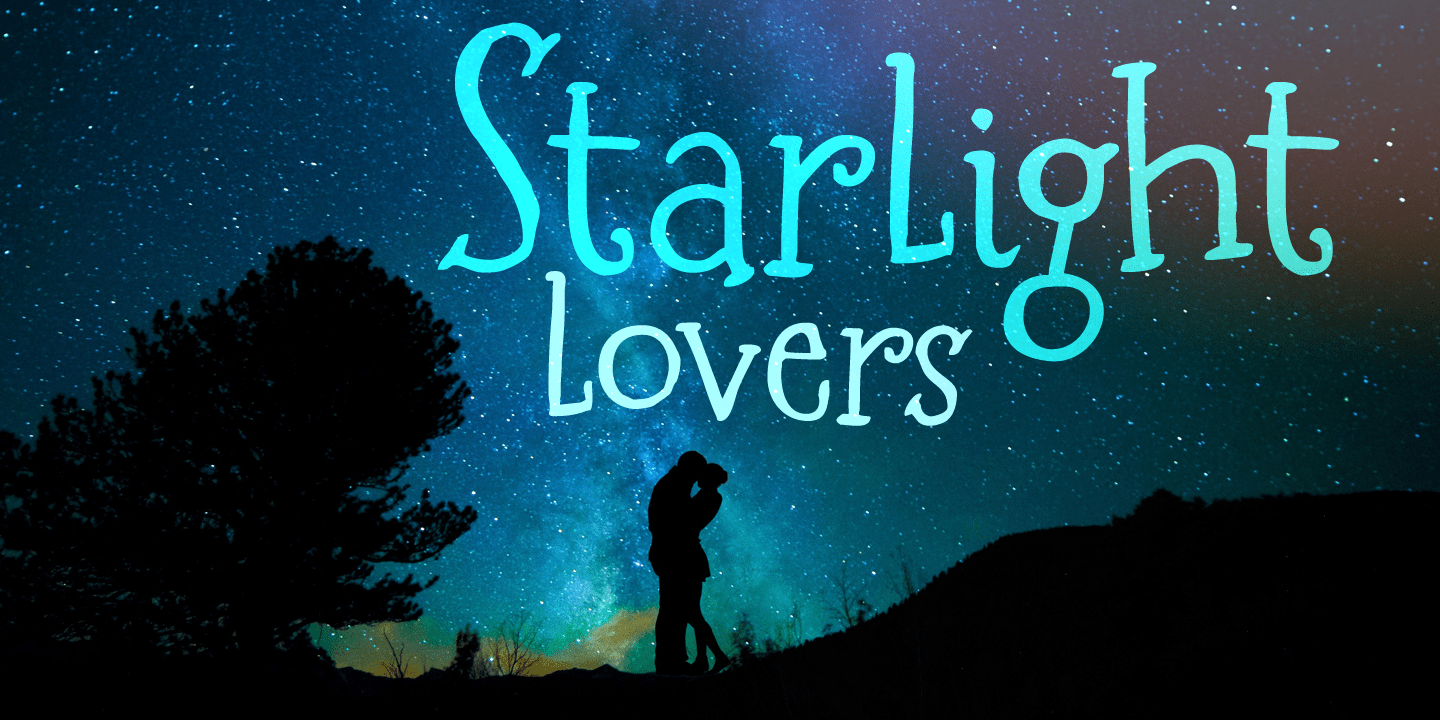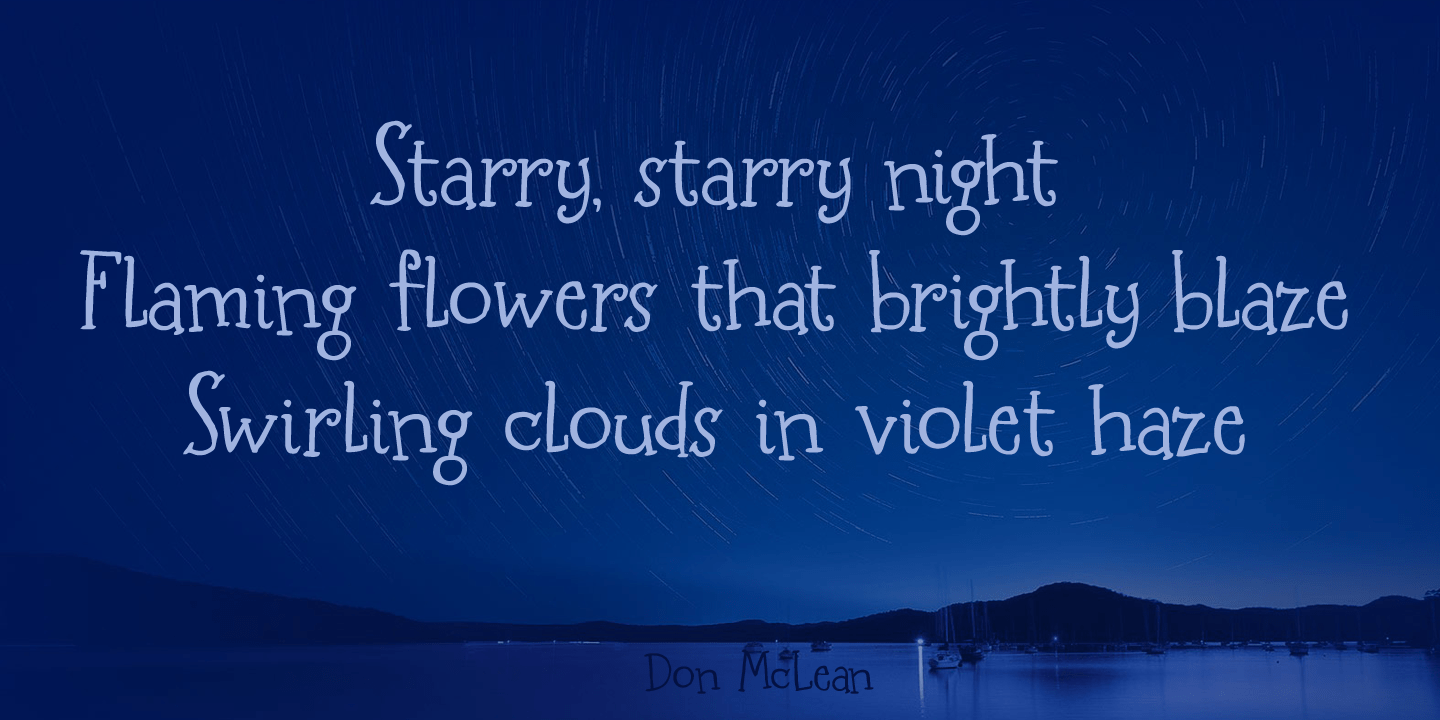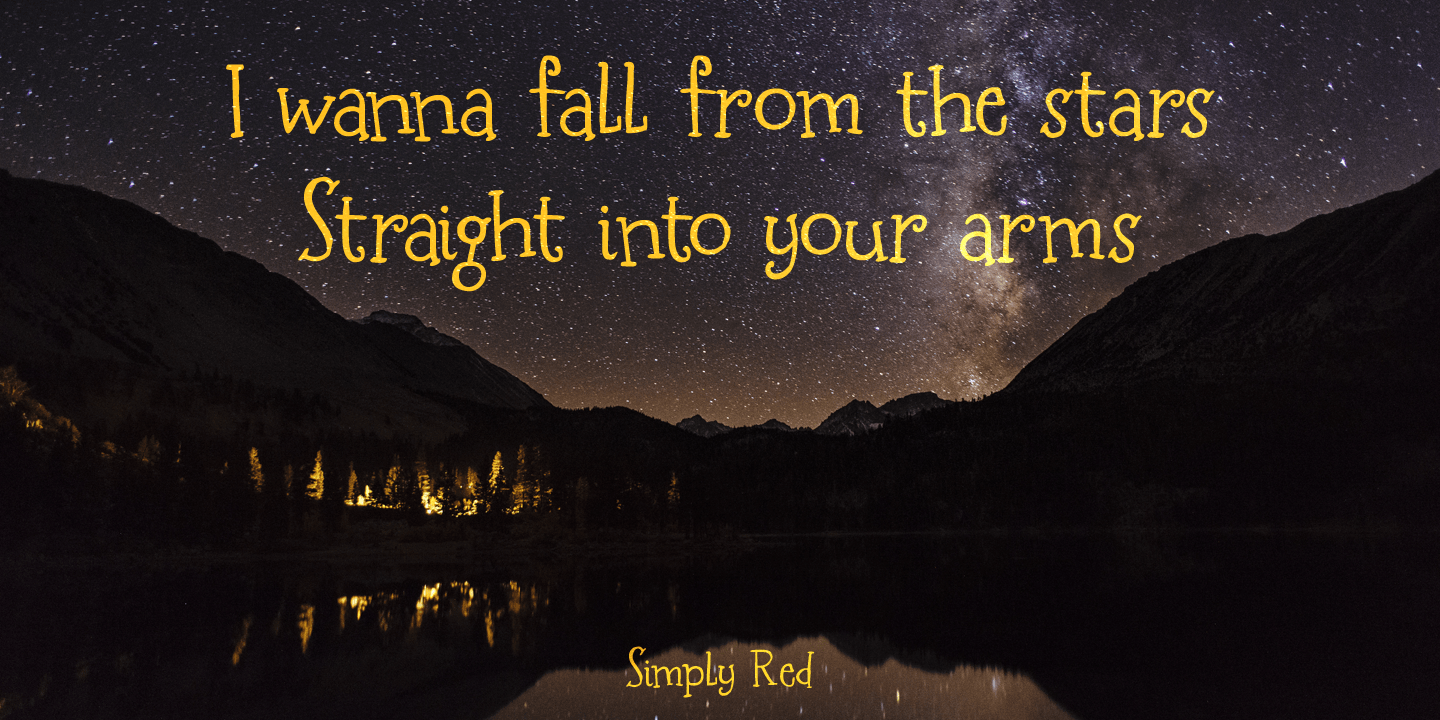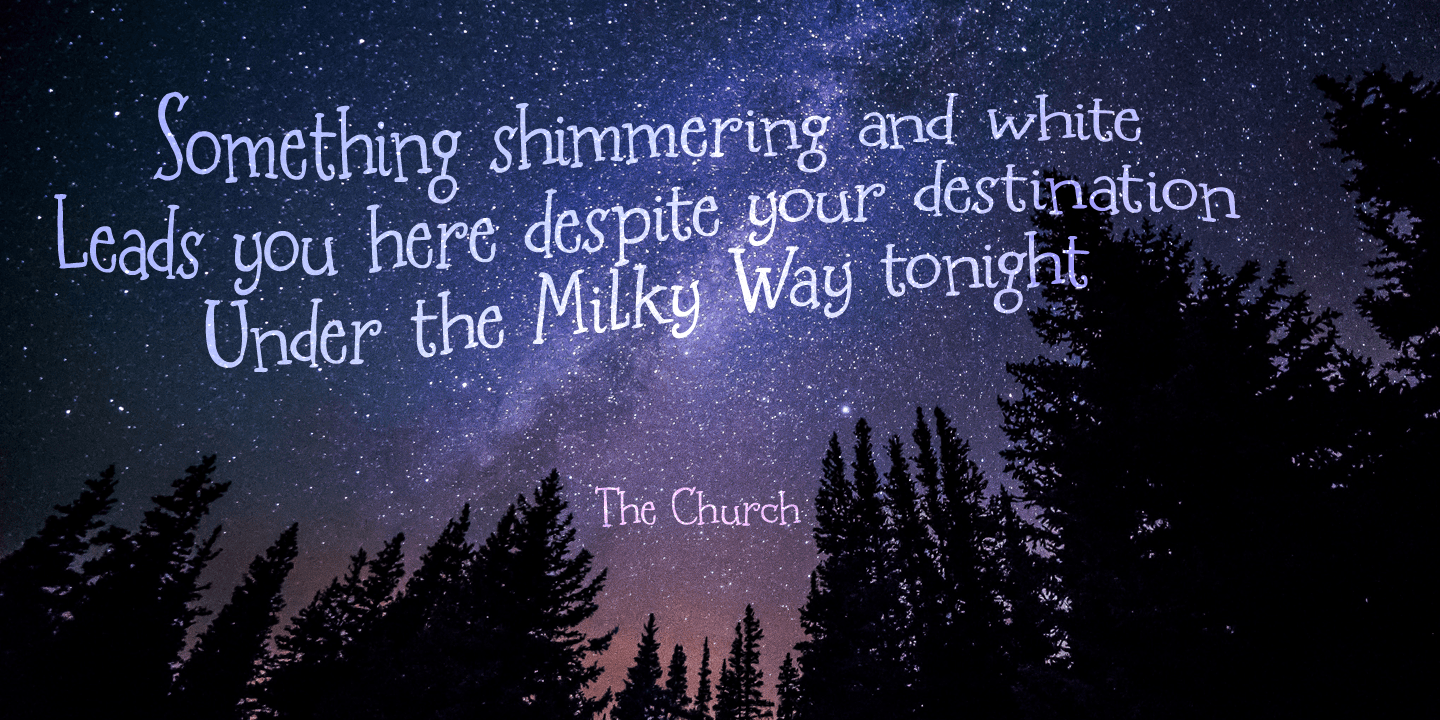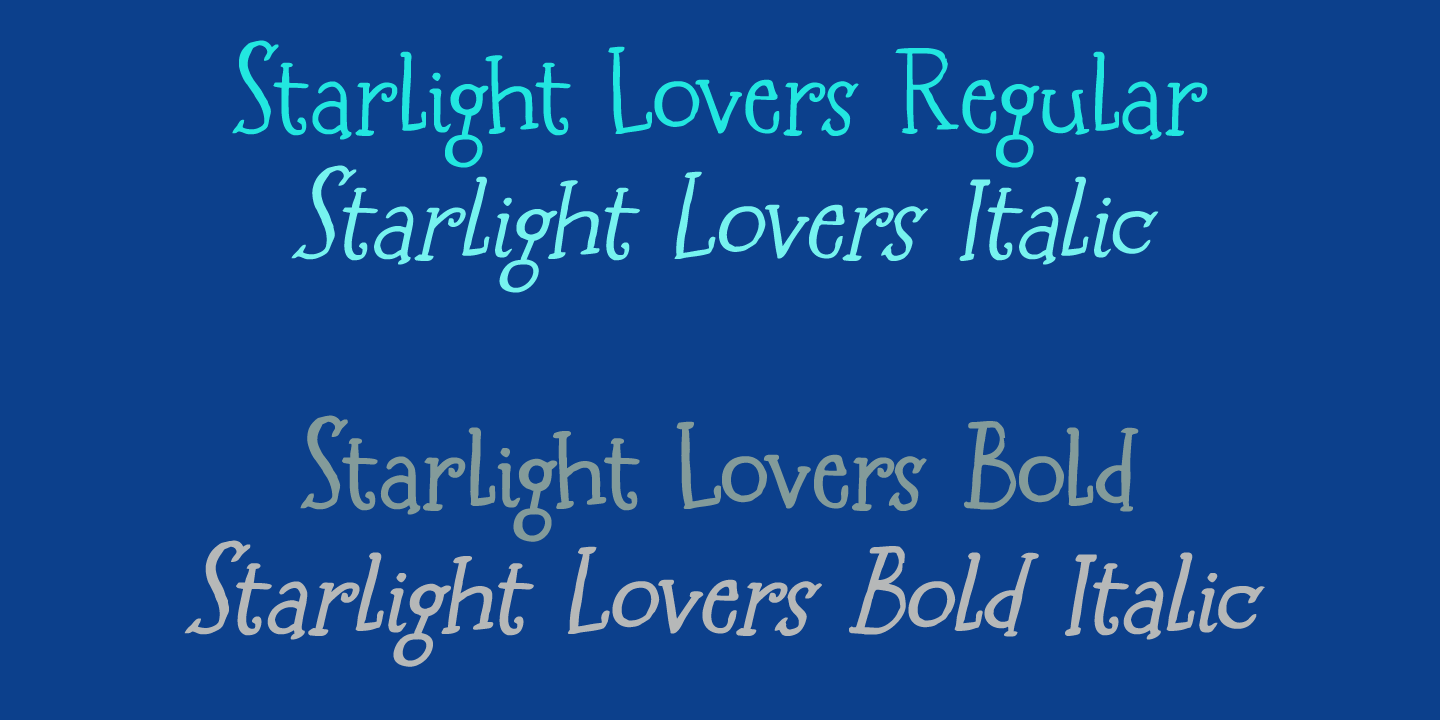
Starlight Lovers
I have always loved gazing at the stars. Too bad that you don't get to see a true starry night these days - mostly because of light pollution. Starlight Lovers is a messy serif. It is hand painted, using a brush and Chinese ink, so the edges may be a bit rough. In my opinion, this adds to the font's character!
Starlight Lovers is an ideal font for (Christmas) cards, book covers, posters and product packaging. Comes with a milky way of diacritics as well!